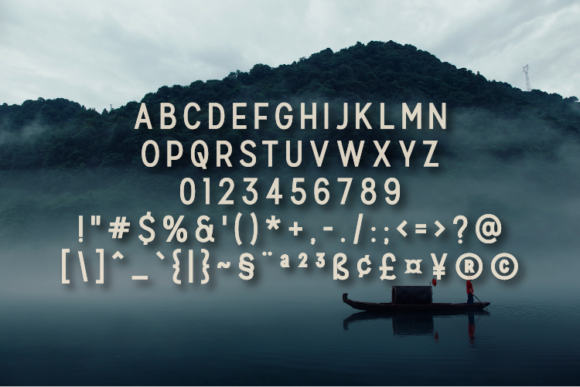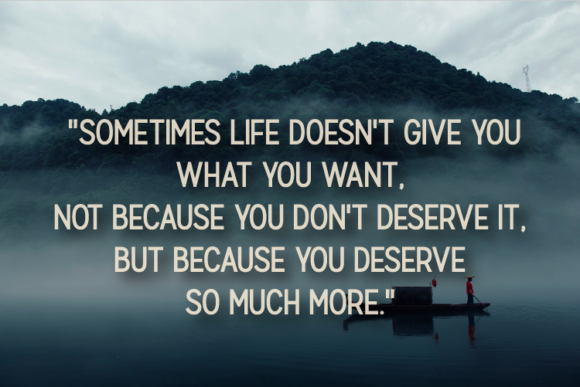
Introducing Doherly Font: The Ultimate Sans Serif for Designers and Crafters
Are you tired of using the same old fonts in your designs? Look no further! Doherly Font is here to revolutionize your creative projects with its bold and neat lettered sans serif style. This versatile font is suitable for a wide variety of designs, making it the perfect addition to your font library.
What is Doherly Font?
Doherly is a modern sans serif font that exudes confidence and sophistication. Its clean lines, precise curves, and carefully crafted letterforms make it an excellent choice for designers and crafters seeking a reliable and stylish font. Whether you’re working on a logo, brochure, website, or social media graphics, Doherly Font has got you covered.
Key Features of Doherly Font
- Bold and Neat Lettering: Doherly’s bold and neat lettering style makes it perfect for headlines, titles, and emphasis text.
- Sans Serif Style: The font’s sans serif design ensures clarity and readability, even at small font sizes.
- Versatility: Doherly Font can be used for a wide range of designs, from modern and minimalist to bold and edgy.
- Easy to Read: The font’s carefully crafted letterforms ensure excellent legibility, making it suitable for body text and captions.
Why Choose Doherly Font?
With so many fonts available, why should you choose Doherly Font for your projects? Here are just a few reasons:
- Unique Style: Doherly Font offers a distinctive style that will set your designs apart from the crowd.
- Time-Saving: With Doherly Font, you can create professional-looking designs quickly and efficiently.
How to Use Doherly Font in Your Designs
Doherly Font is an incredibly versatile font that can be used in a variety of design projects. Here are some ideas to get you started:
- Logos and Branding: Use Doherly Font to create bold and memorable logos that make a lasting impression.
- Print Materials: Add a touch of sophistication to your brochures, flyers, and posters with Doherly Font.
- Web Design: Use Doherly Font to create stunning website headers, titles, and emphasis text.
- Social Media Graphics: Make your social media graphics stand out with Doherly Font’s bold and neat lettering style.
Tips and Tricks for Getting the Most Out of Doherly Font
To take your designs to the next level with Doherly Font, here are some expert tips and tricks:
- Experiment with Font Sizes: Play with different font sizes to create visual hierarchy and emphasis in your designs.
- Pair with Other Fonts: Combine Doherly Font with other fonts to create unique and interesting typography.
- Use Color Effectively: Take advantage of Doherly Font’s bold style by using contrasting colors to make your text pop.